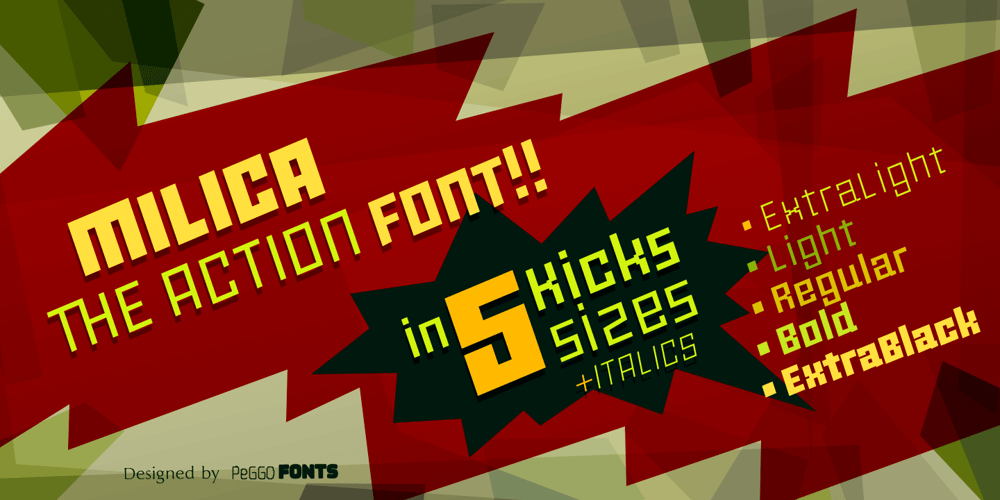
Milica
Milica font
Milica Font Family was designed by published by PeGGO Fonts. Milica contains 10 styles and family package options. Milica is a display font, inspired on action movies and urban Military culture, designed with straight verticals but slanted horizontals with no curves and sharped hard strokes, in 5 sizes, ExtraLight, Light, regular, Bold & ExtraBlack, plus italic version to each weight. Recommended for use in poster, Movies, video games, TV, Animation, letterhead, magazines titles, POP & Graphic culture, young stuff, hip-hop topics, urban, big sizes prints, Volumetric 3D shapes, labels, etc. Powered by OTF technology.